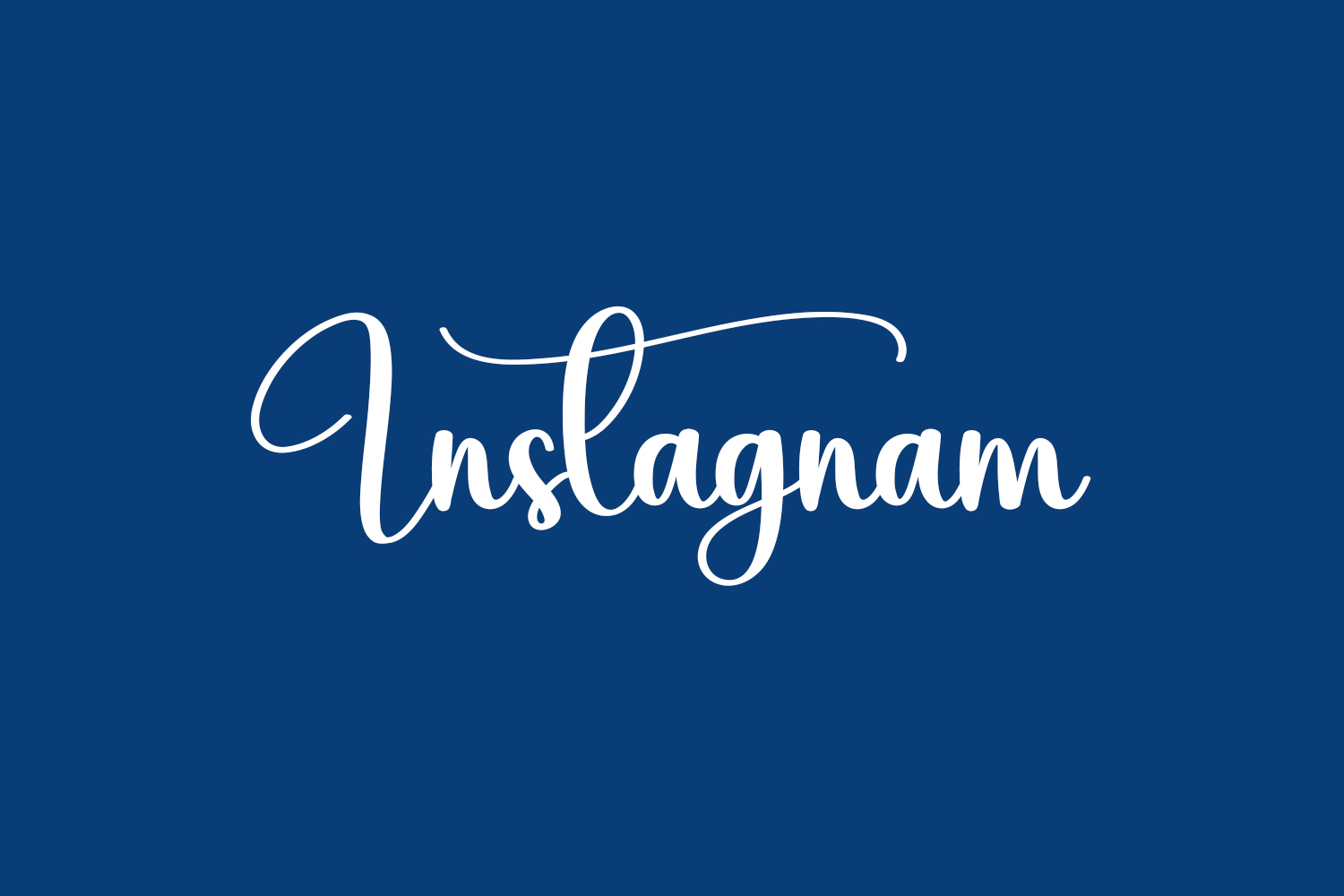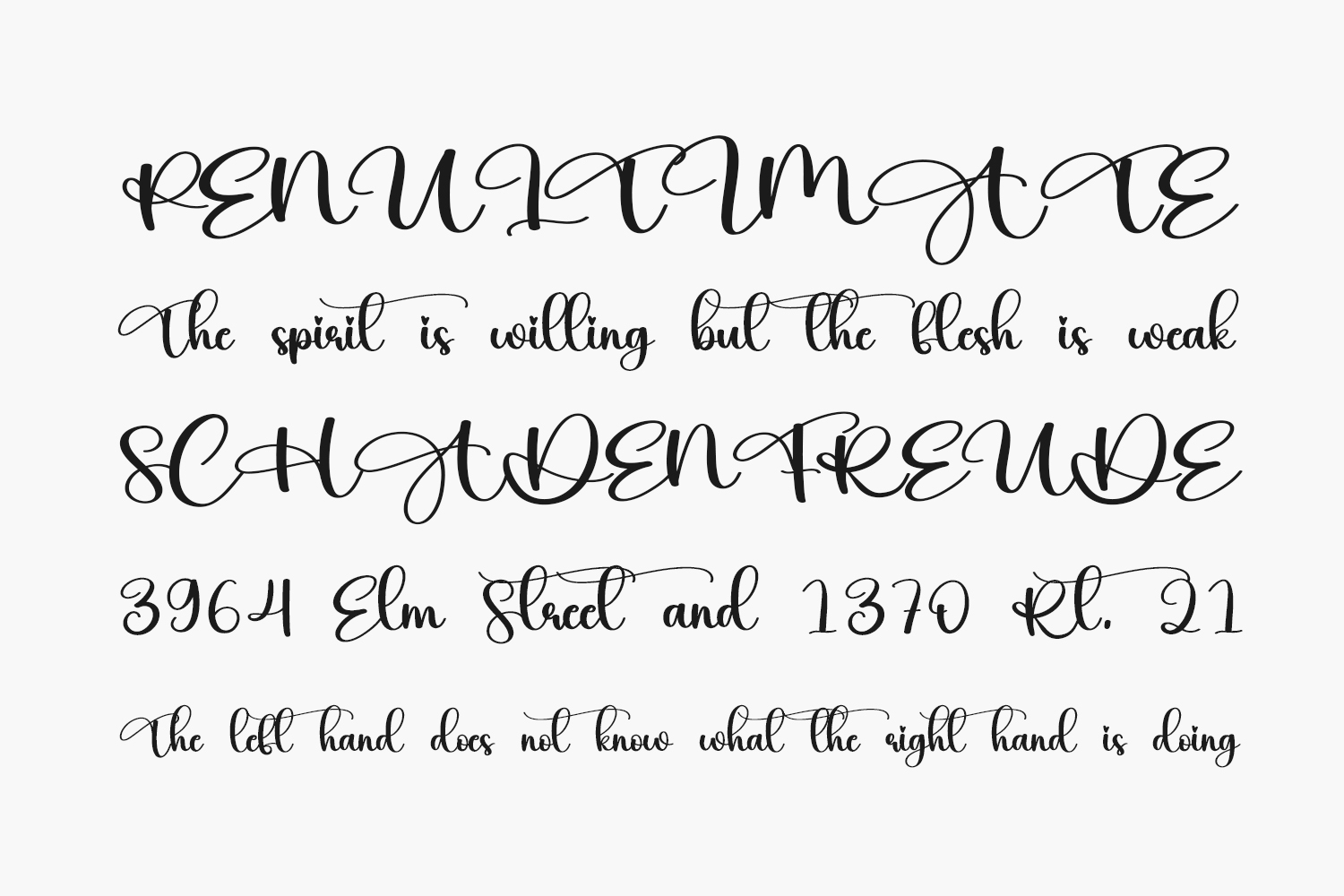
Instagnam Free Font is ideal for showcasing on walls, wedding invites, social media logos, ads, packaging, product designs, labels, photography, watermarks, invitations, stationery, and various projects that crave an authentic handwritten touch. Boost your aesthetic appeal with our impeccable Instagnam lettering. Instagnam Free Font is free for personal or commercial use.
Designed by Scratchones